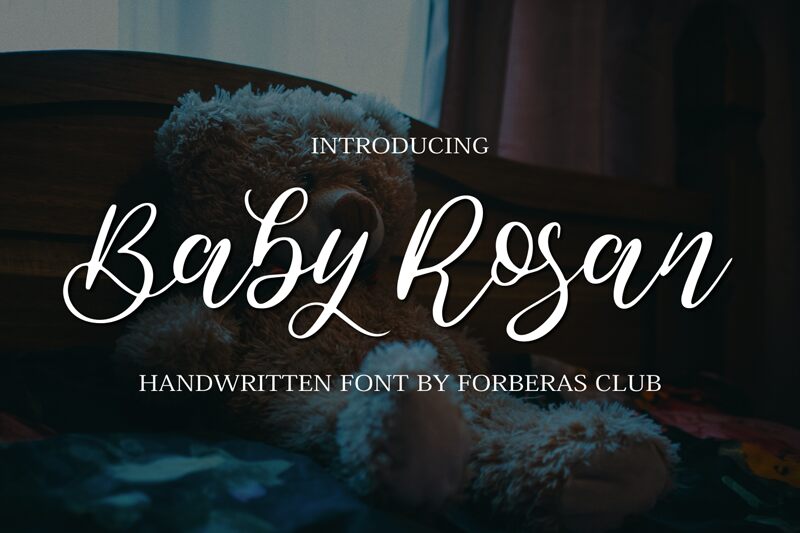
Baby Roshan is a narrow, handwritten script font created by Forberas Club. Perfect for signature-style projects, this timeless font family is sure to add a touch of elegance and sophistication.